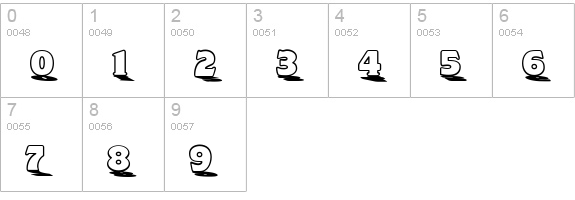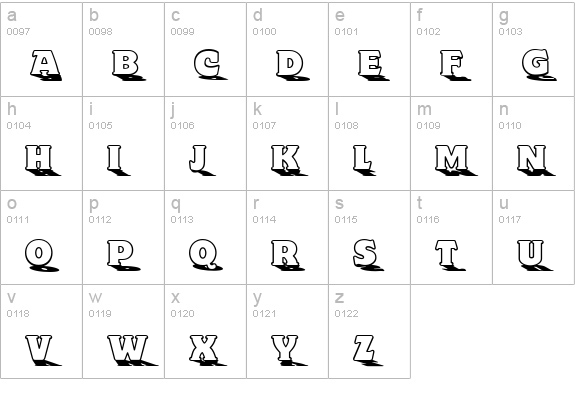
Toyland NF Font Details
Toyland NF is a whimsical and playful font that brings a touch of fun and imagination to any design project. With its charming and rounded letters, this font is perfect for creating eye-catching designs for children's books, posters, invitations, and more. Toyland NF is freely available to download at FontsMarket.com, making it easy for designers to access this delightful font and add a touch of magic to their creations. Let your creativity soar with Toyland NF and bring a sense of joy and wonder to your designs.